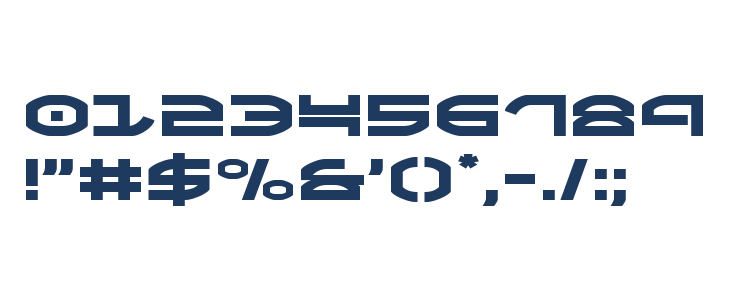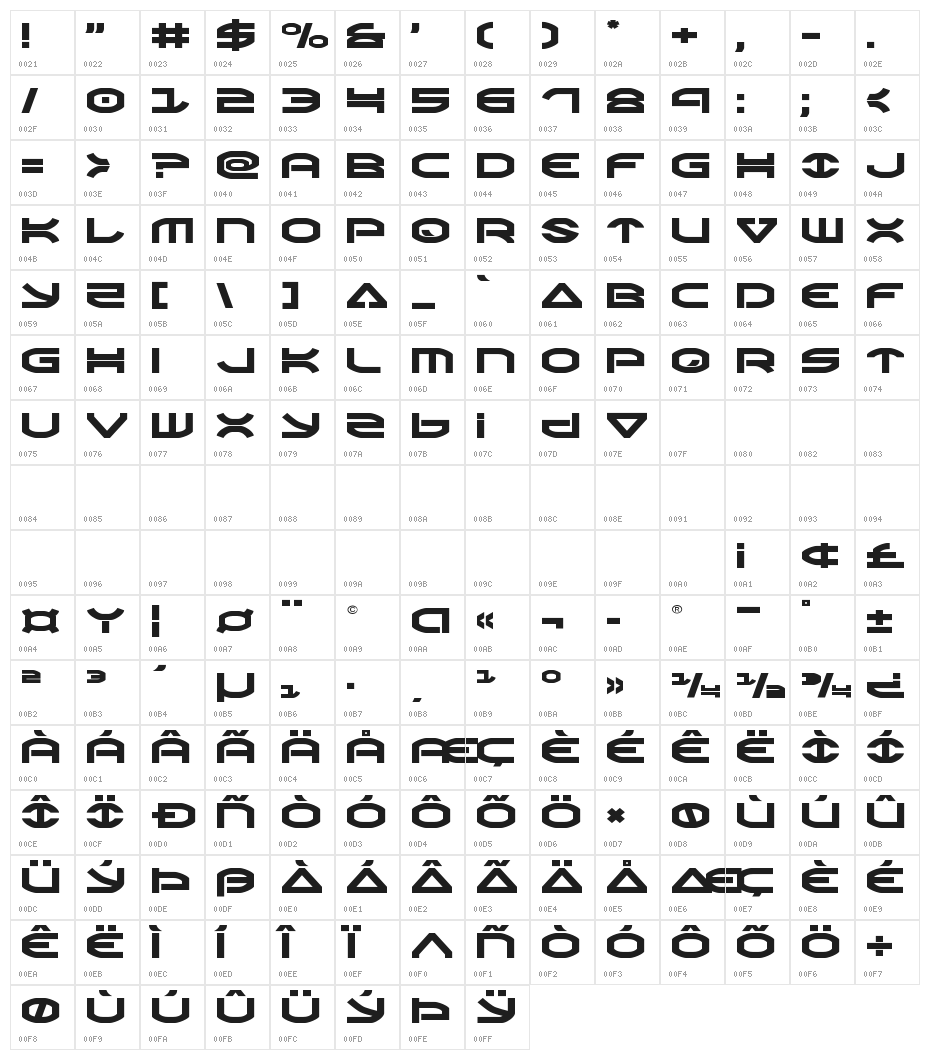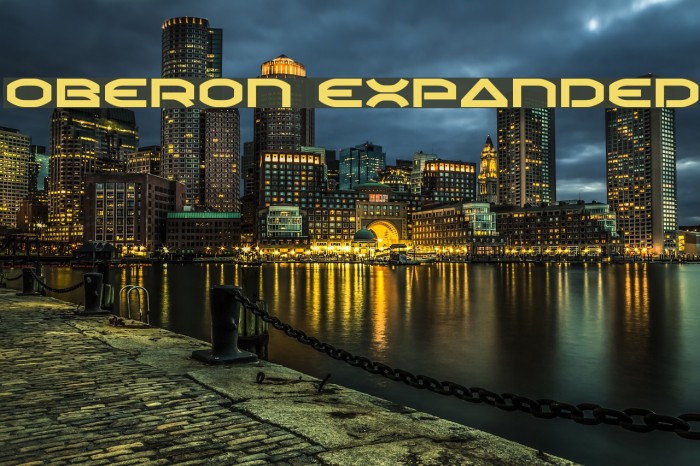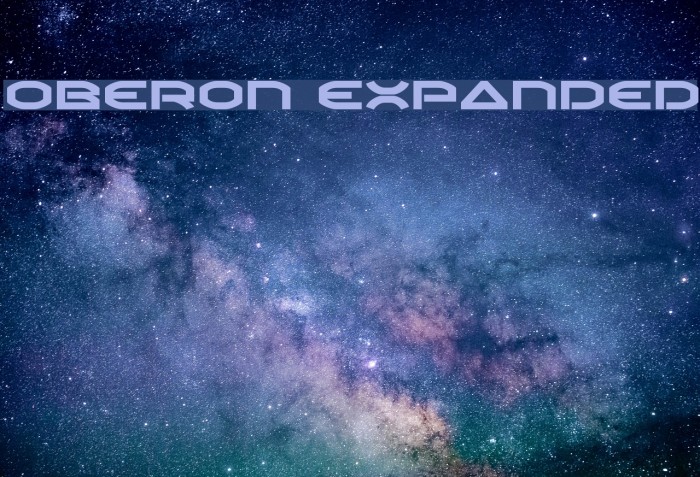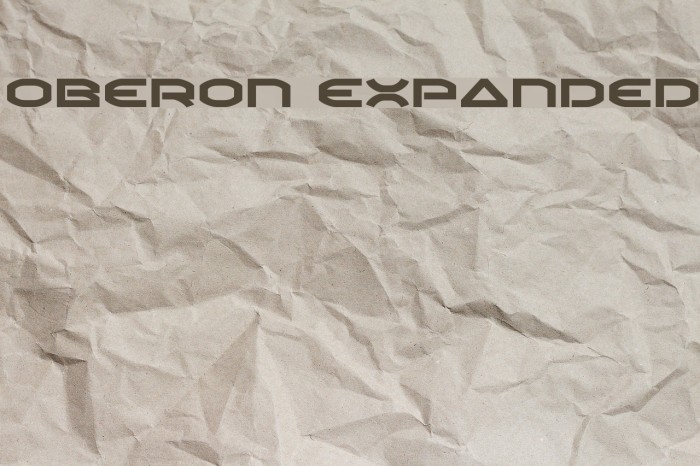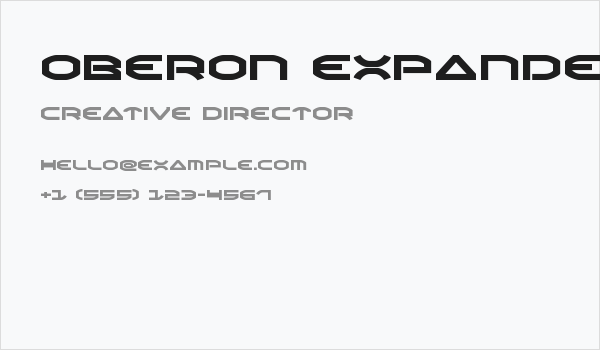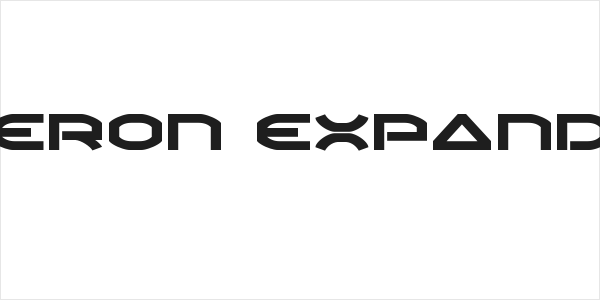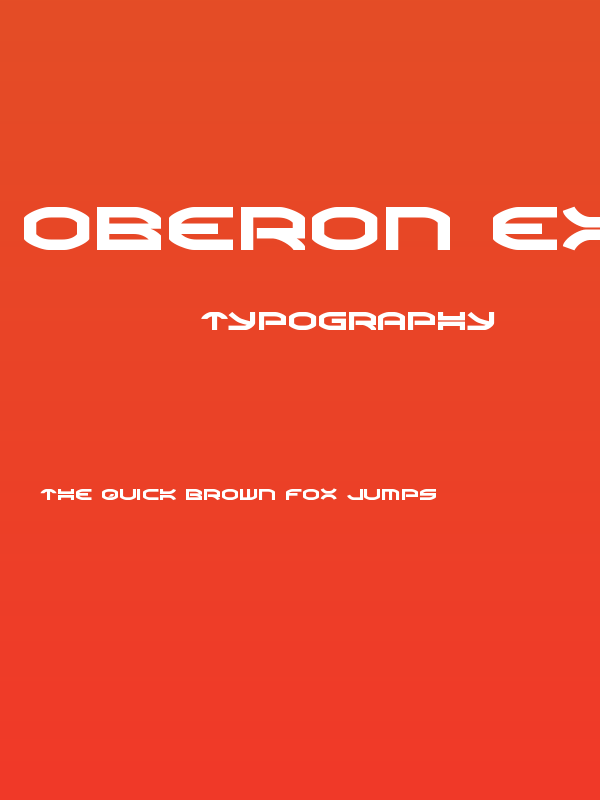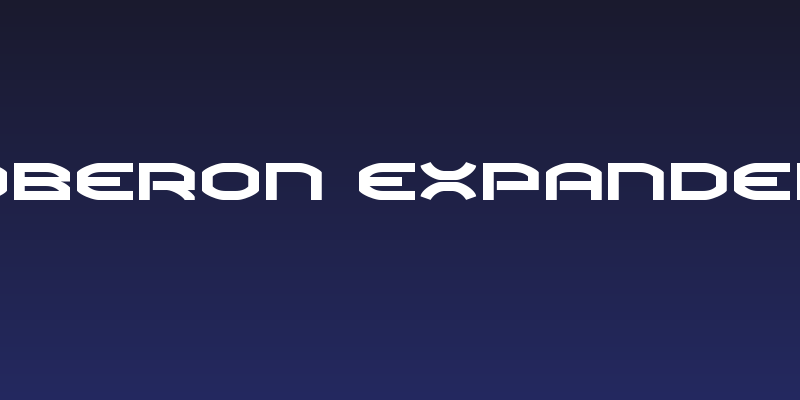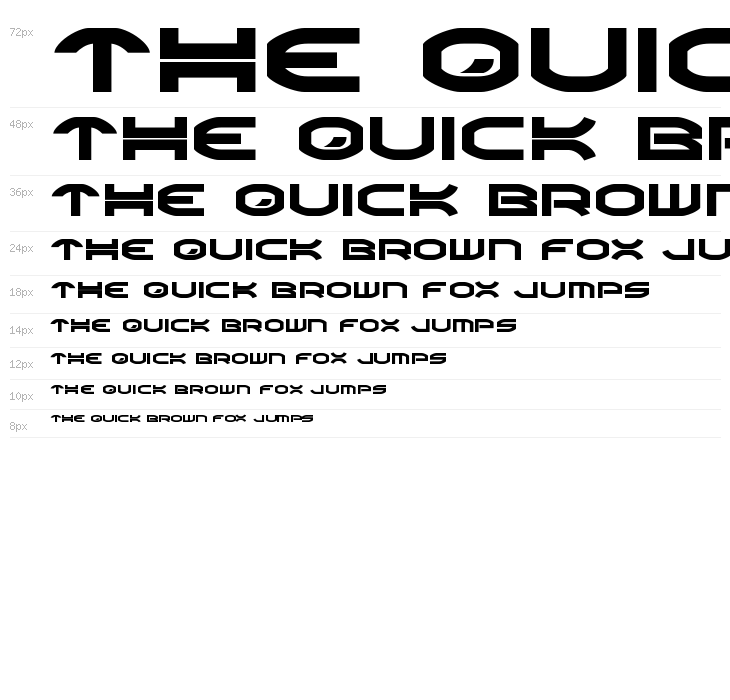
Oberon Expanded Font
Oberon Expanded Description
This font features a bold and futuristic design with geometric elements that create a sense of modernity and innovation. The characters are constructed with a combination of straight lines and curves, giving them a unique and striking appearance. The uppercase letters have a consistent height, while the lowercase letters maintain a similar width, providing a balanced look. The numbers and special characters are designed to match the overall style, ensuring uniformity across all glyphs. This font's expanded width and distinct style make it ideal for attention-grabbing designs.
| Proposed Projects | Ideal for sci-fi themed projects, technology branding, video game titles, and futuristic posters. |